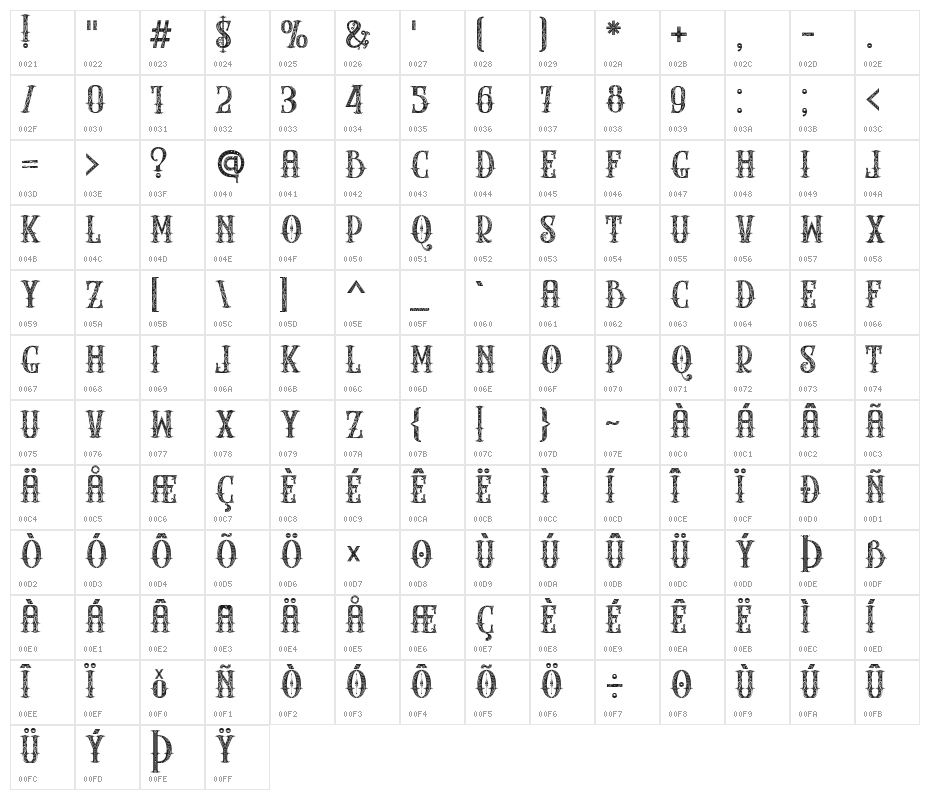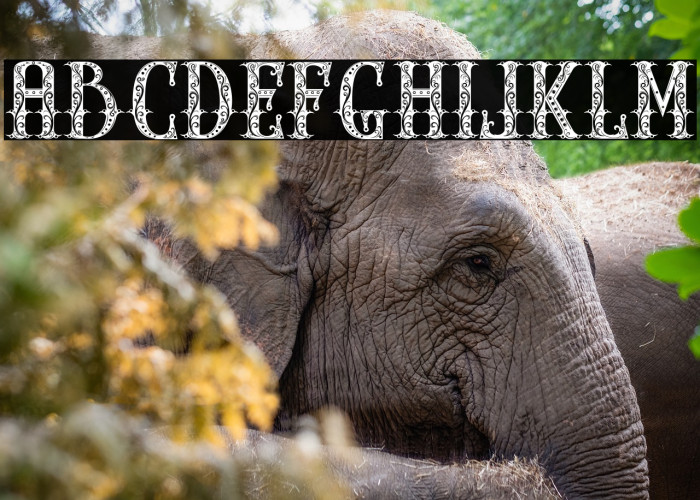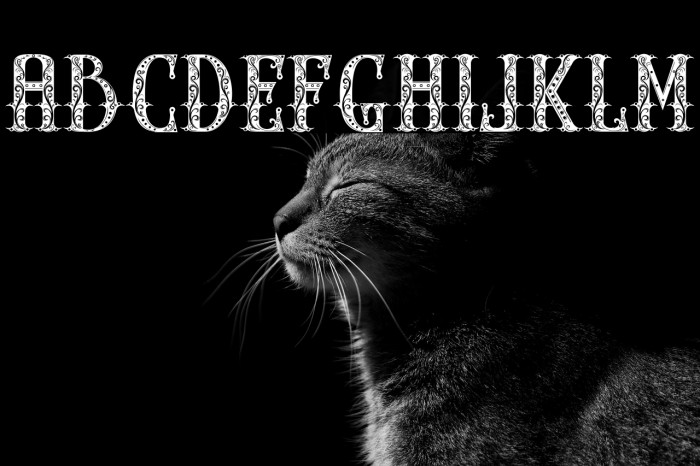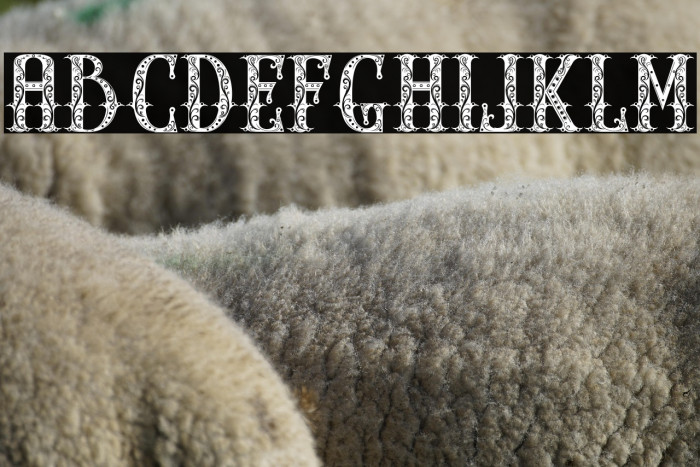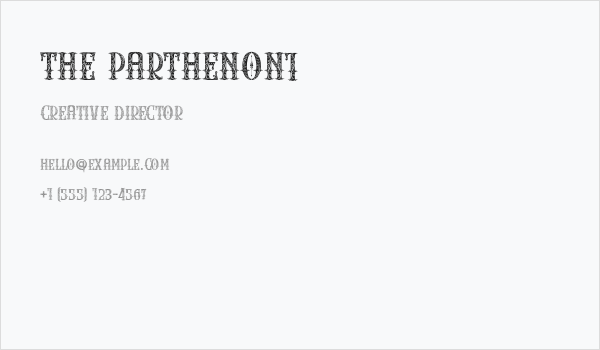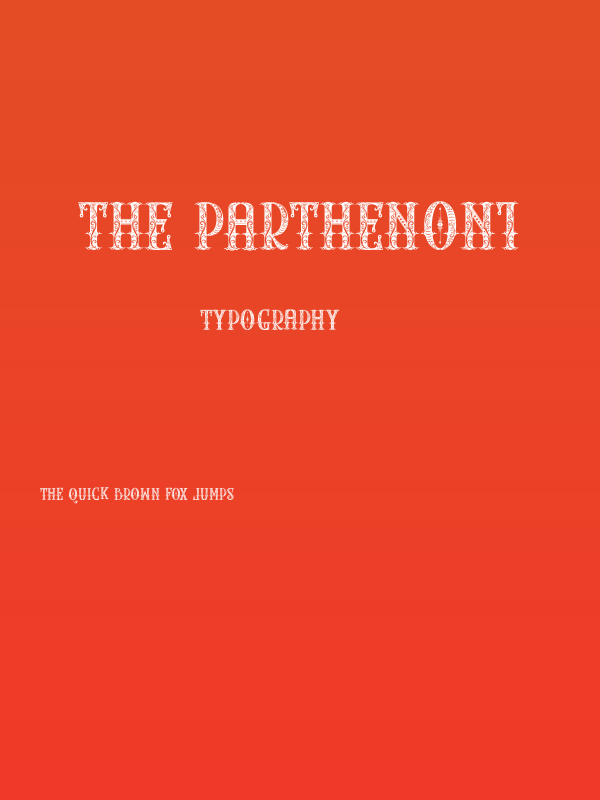
THE PARTHENON1 Font
THE PARTHENON1 Description
This font is a highly decorative and ornate typeface, characterized by intricate floral and vine-like embellishments that intertwine with the bold, serif letterforms. Each character is uniquely adorned, creating a sense of elegance and sophistication. The uppercase letters are particularly elaborate, with swirling patterns that extend beyond the basic letter shapes, giving them a majestic and grand appearance. The numerals and special characters also follow this ornate style, ensuring consistency across the entire character set. This font is ideal for projects that require a touch of vintage charm and artistic flair.
| Proposed Projects | Ideal for wedding invitations, vintage-themed posters, luxury branding, and decorative book covers. |